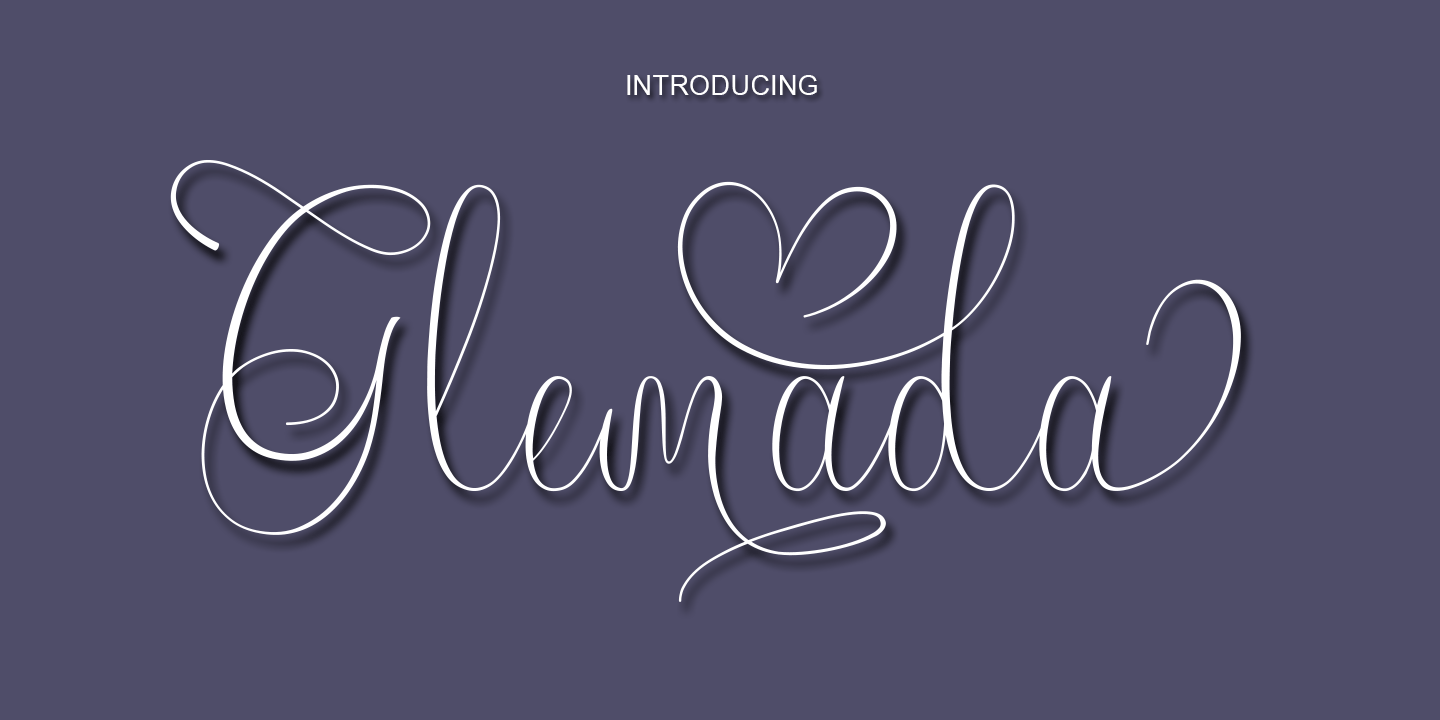
Glemada Font is perfect for luxury fashion boutiques, high-end cosmetics branding, elegant jewelry marketing, sophisticated lifestyle magazines, premium beauty salons, and glamorous event planning materials. Its dazzling character makes it ideal for diamond retailers, luxury spas, high-fashion designers, celebrity stylists, and any application requiring sparkling typography that conveys glamorous sophistication, radiant beauty, and the shimmering allure of luxury lifestyle experiences.
Glemada Font is exciting because it radiates glamorous elegance and sparkling sophistication through luminously crafted letterforms that capture the dazzling brilliance of diamond-like luxury. Its radiant proportions and glamorous details evoke the shimmering beauty of red carpet moments and the exclusive allure of high-society elegance, making it perfect for brands seeking to convey premium luxury and sophisticated glamour. The font's glamorous character transforms ordinary communications into sparkling expressions of refined taste.
Glemada Font family includes luxury-inspired weight variations typically featuring Light, Regular, Medium, and Bold options with sparkling italic styles that mirror glamorous movement. The family often incorporates elegant flourishes, luxury symbols, and sophisticated ornaments designed for high-end glamour applications, providing designers with comprehensive tools for creating authentic, glamour-focused typographic compositions.
When selecting luxury glamour typography solutions, Glemada Font Free Download represents an exceptional choice for high-end fashion and beauty projects. This dazzling typeface brings instant glamorous authenticity to any design, making it invaluable for luxury brands, high-fashion retailers, and premium beauty companies celebrating sophisticated elegance. Whether you're developing luxury fashion campaigns, creating high-end beauty product packaging, or designing glamorous event materials, Glemada Font provides the sparkling sophistication and glamorous elegance essential for capturing luxury appeal in today's fashion-conscious premium marketplace.